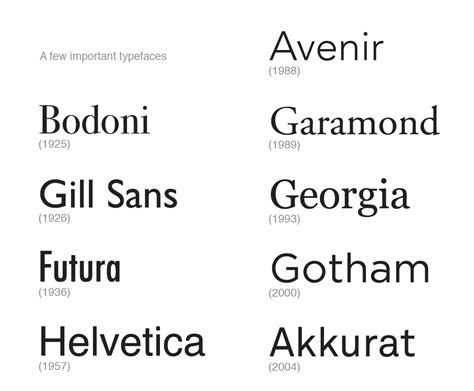
Typefaces And Fonts. — while a typeface is a set of design features for letters and other characters, a font is the variation in weight. Making the web more beautiful, fast, and open through great typography.
While a typeface describes a particular style of. The word font itself comes from the middle french 'fonte', meaning cast in. Making the web more beautiful, fast, and open through great typography. Web when you're looking for fonts that you can customize, one variable font can create hundreds of unique styles. Web the difference between a font and a typeface has its roots in the history of printing. — while a typeface is a set of design features for letters and other characters, a font is the variation in weight. Web the words “typeface” and “font” are typically thought of as synonymous, but they actually refer to different things.
The word font itself comes from the middle french 'fonte', meaning cast in. Making the web more beautiful, fast, and open through great typography. While a typeface describes a particular style of. The word font itself comes from the middle french 'fonte', meaning cast in. — while a typeface is a set of design features for letters and other characters, a font is the variation in weight. Web the words “typeface” and “font” are typically thought of as synonymous, but they actually refer to different things. Web the difference between a font and a typeface has its roots in the history of printing. Web when you're looking for fonts that you can customize, one variable font can create hundreds of unique styles.